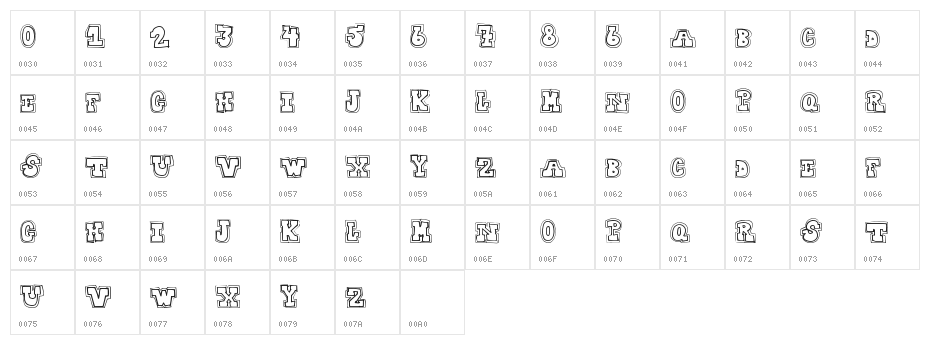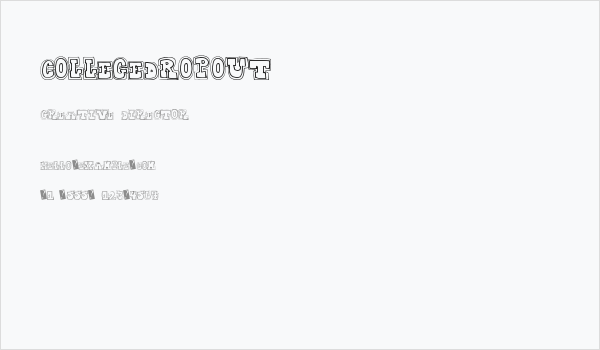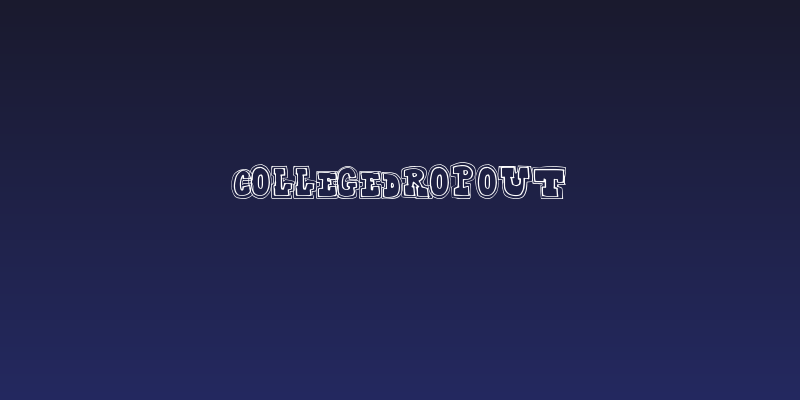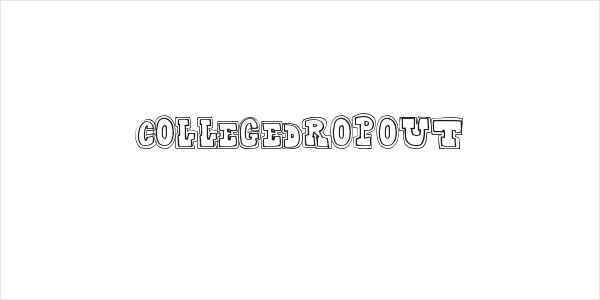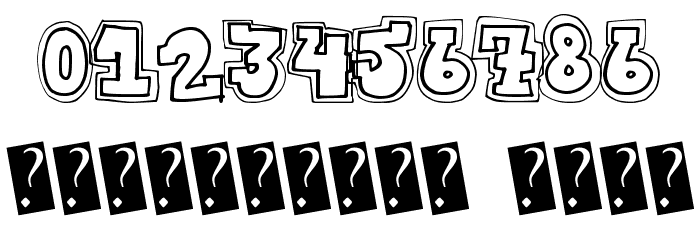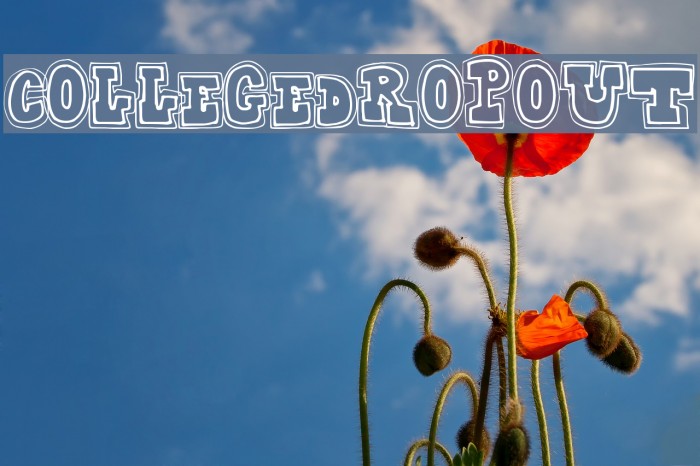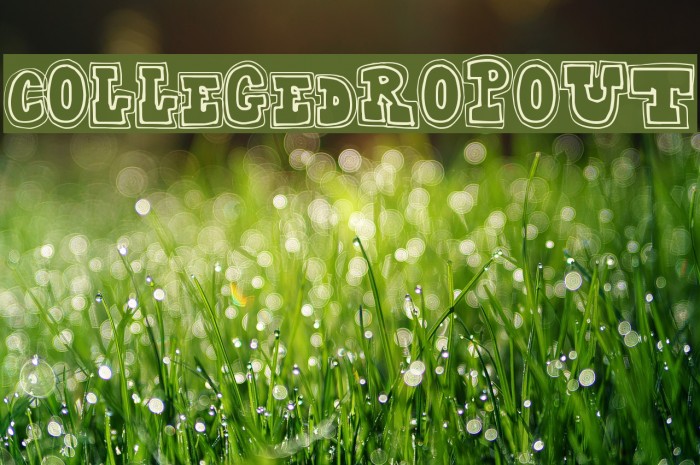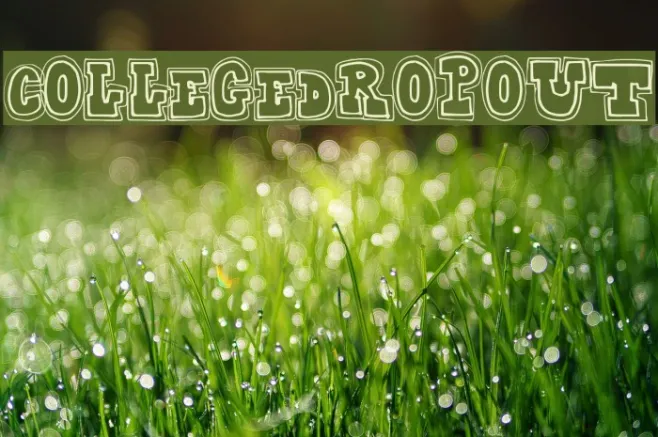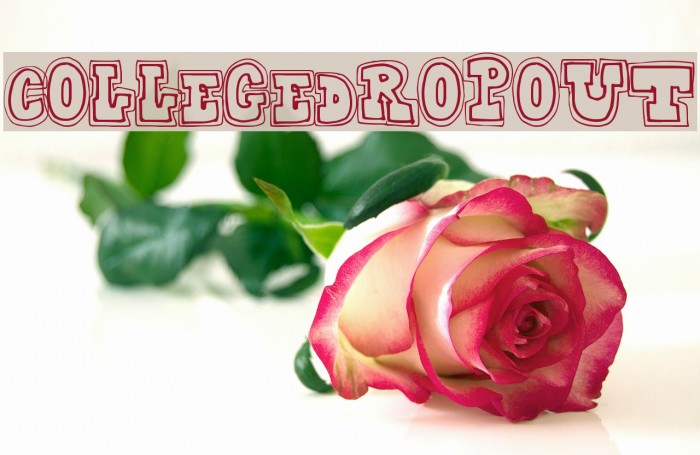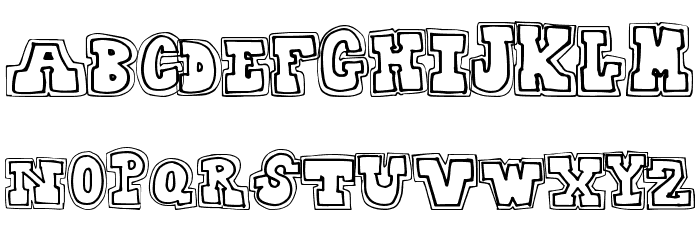
CollegeDropout Font
CollegeDropout Description
This font features a bold, playful style with a three-dimensional effect that gives each character a sense of depth. The letters are outlined with a thick black border, creating a striking contrast against the white interior. The characters are slightly rounded, adding a friendly and approachable feel. This font is highly decorative, making it ideal for eye-catching designs. The numbers and special characters maintain the same bold and outlined style, ensuring consistency across all elements. The overall design is reminiscent of comic book lettering, with a fun and energetic vibe.
| Overall Style | Playful, Energetic, Comic |
| Use Case | Headlines, Posters, Logos |
| Proposed Projects | Ideal for comic book titles, children's book covers, playful posters, and event flyers. |